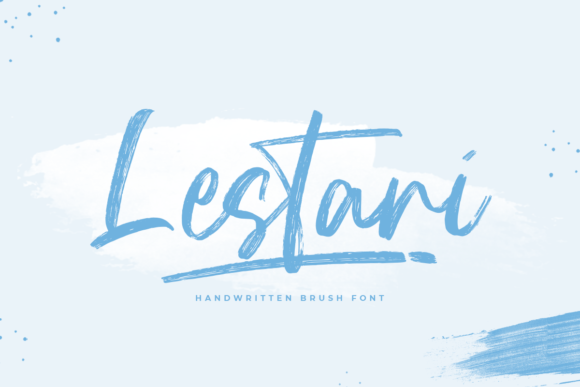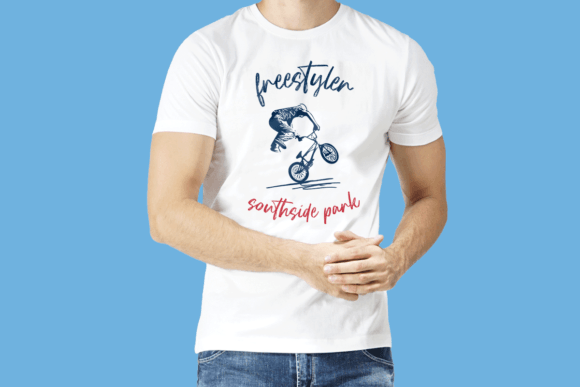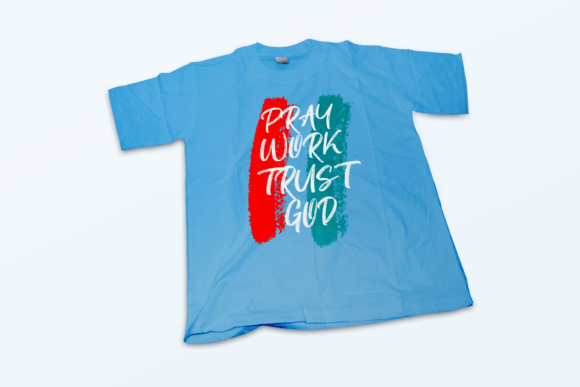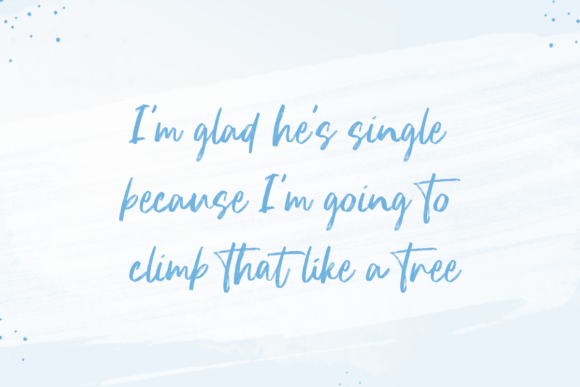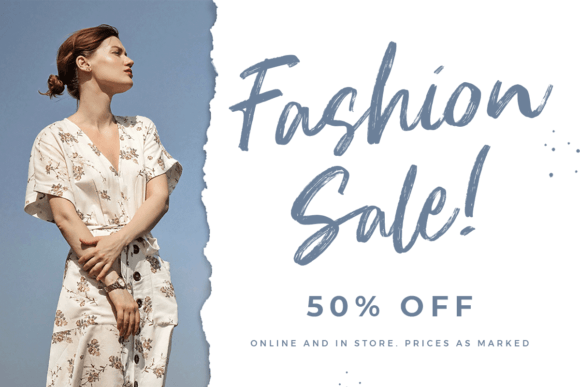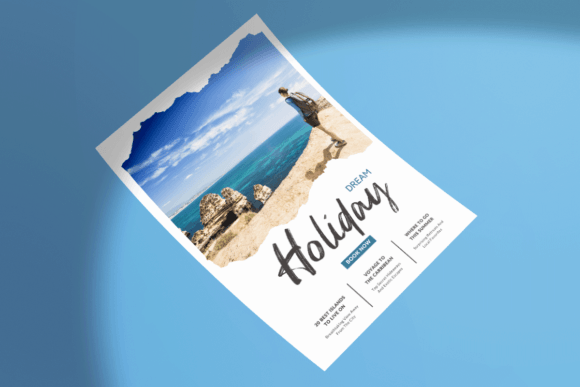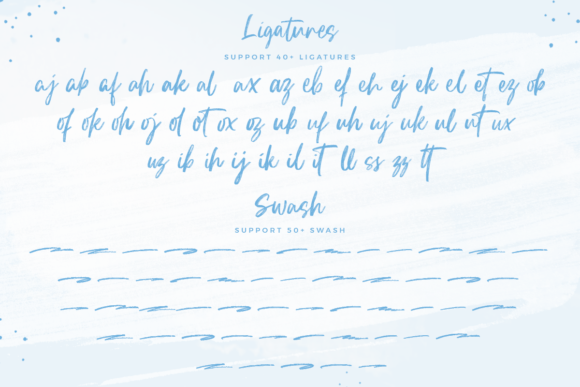
Lestari Font
About Lestari Font
Lestari is an exquisite handwritten font that exudes elegance, making it an ideal choice for a variety of design projects such as T-shirts, posters, social media posts, quotes, and more. Incorporate Lestari into your creative endeavors, and witness how it captivates everyone’s attention with its refined charm. Notably, this font is PUA encoded, ensuring convenient access to all its glyphs and swashes for a seamless design experience.
The elegance of Lestari is particularly well-suited for T-shirt designs, where it can lend a sophisticated and stylish touch. Its graceful strokes and distinctive letterforms make it a standout choice for creating visually appealing and impactful posters that leave a lasting impression.
In the realm of social media, Lestari can elevate the aesthetic of your posts, adding a touch of class to your visual content. Whether you’re sharing quotes, announcements, or promotional materials, this font’s handwritten allure contributes to a polished and engaging presentation.
The PUA encoding of Lestari enhances its user-friendliness by allowing easy access to all glyphs and swashes. This feature opens up a realm of creative possibilities, enabling you to customize your designs with flair and precision. Whether you’re a seasoned designer or a beginner, the accessibility of these elements ensures a smooth and enjoyable design process.
For a cohesive and stylish look in various creative projects, Lestari proves to be a versatile and attention-grabbing font. Its elegance, combined with the convenience of PUA encoding, makes it a valuable addition to your design toolkit, providing a timeless and sophisticated touch to your diverse range of projects.